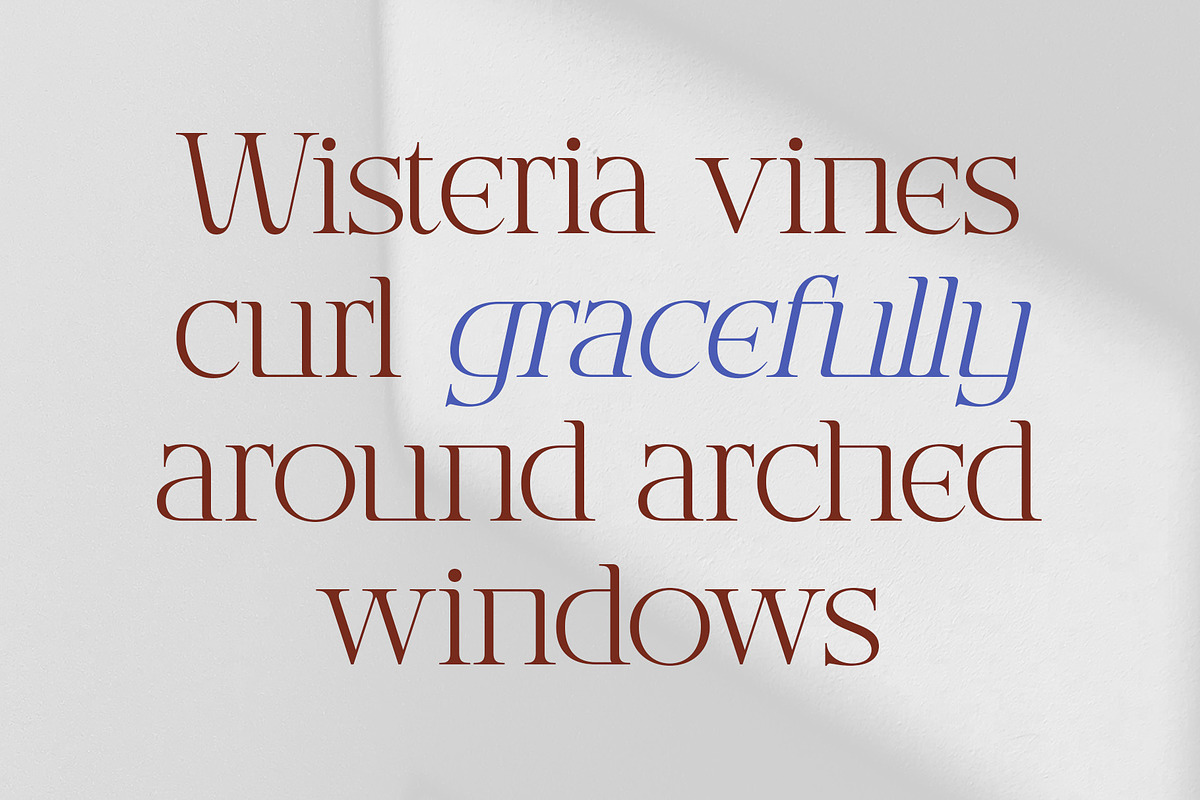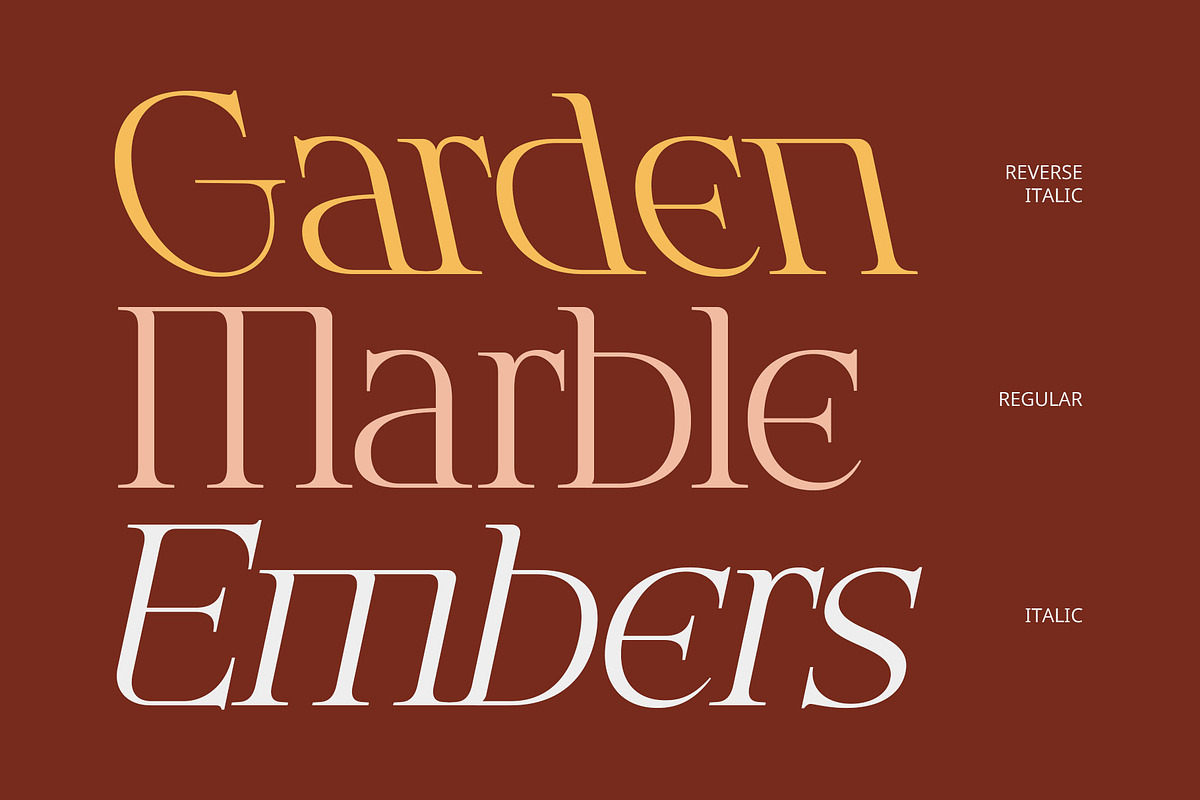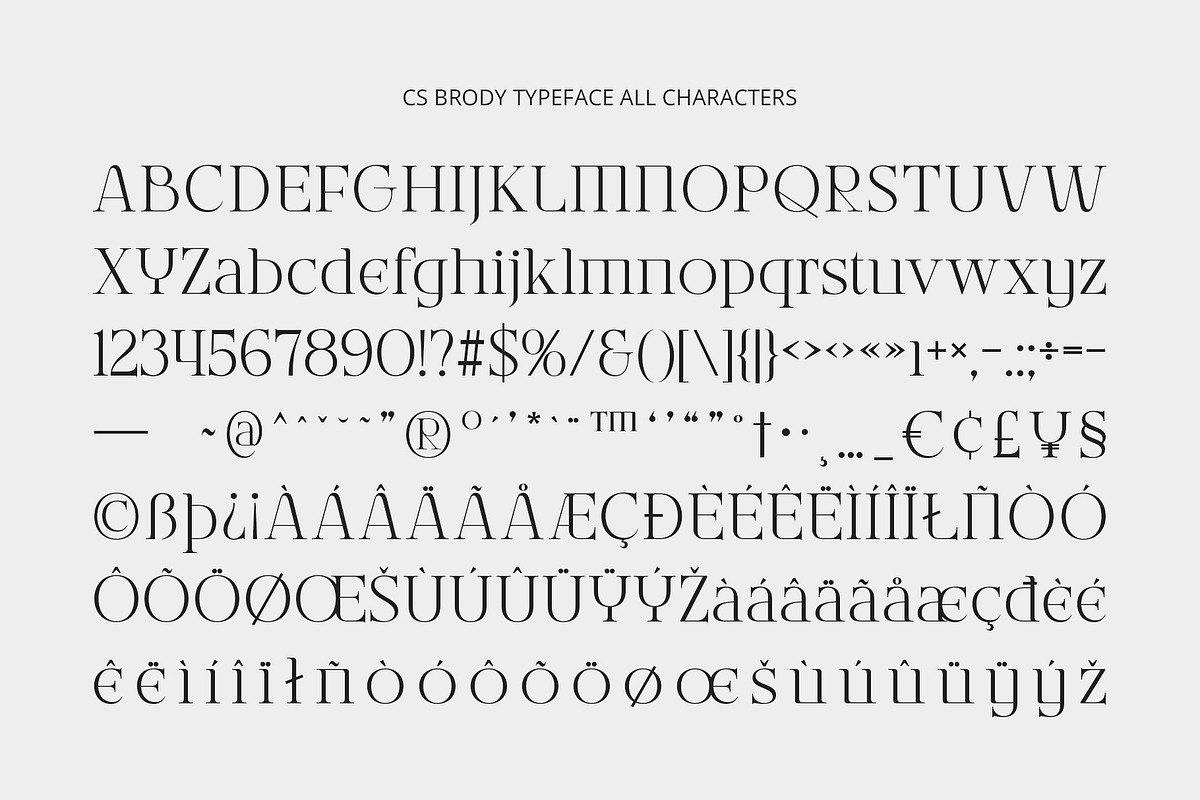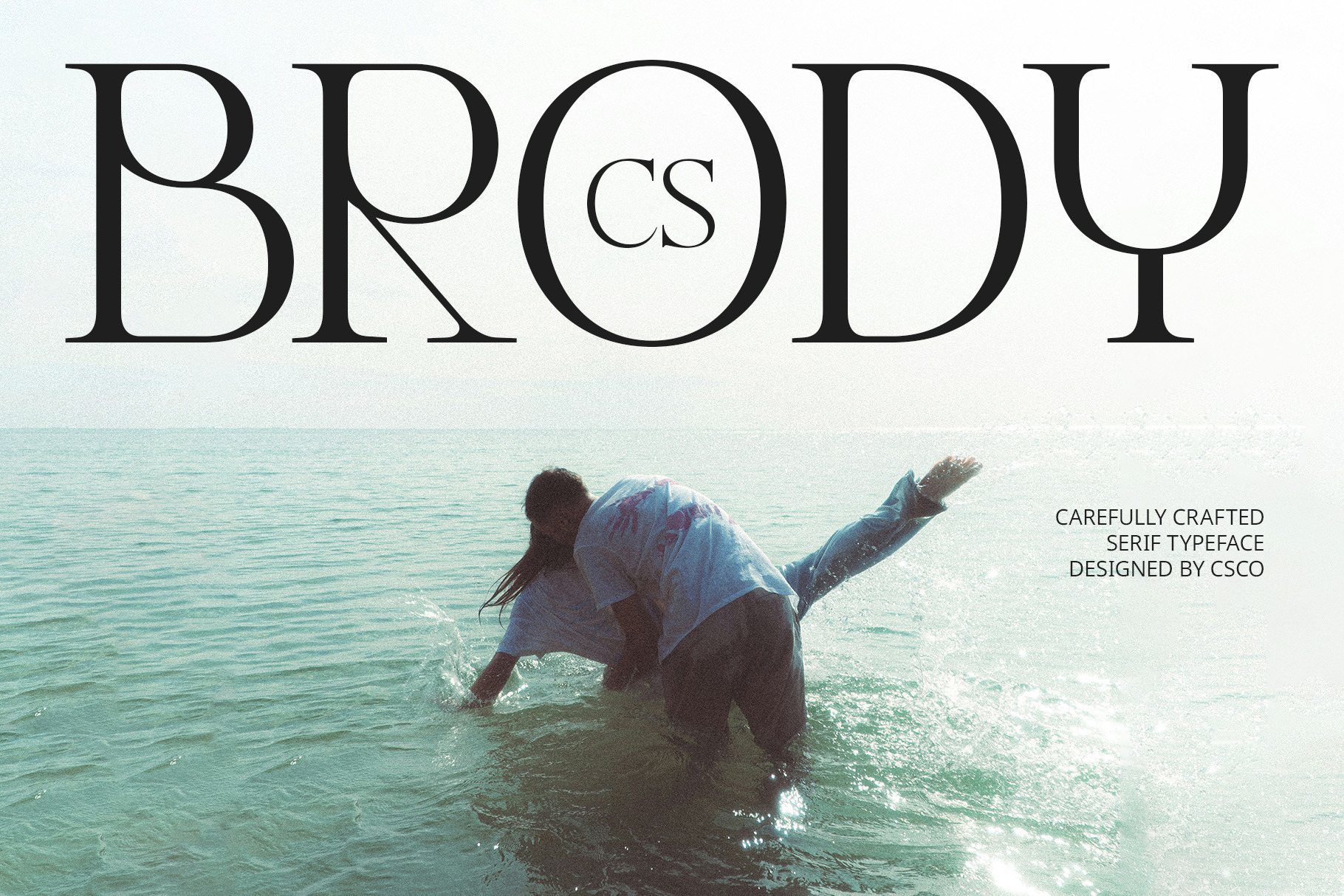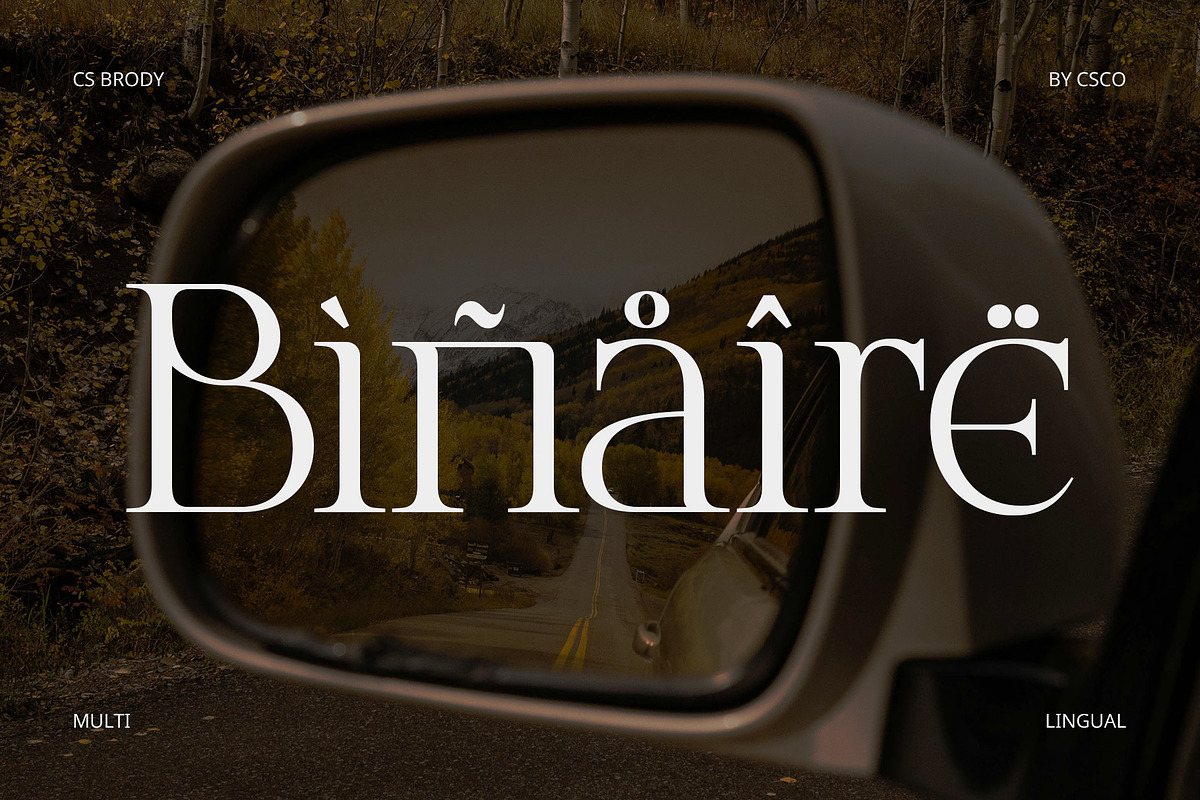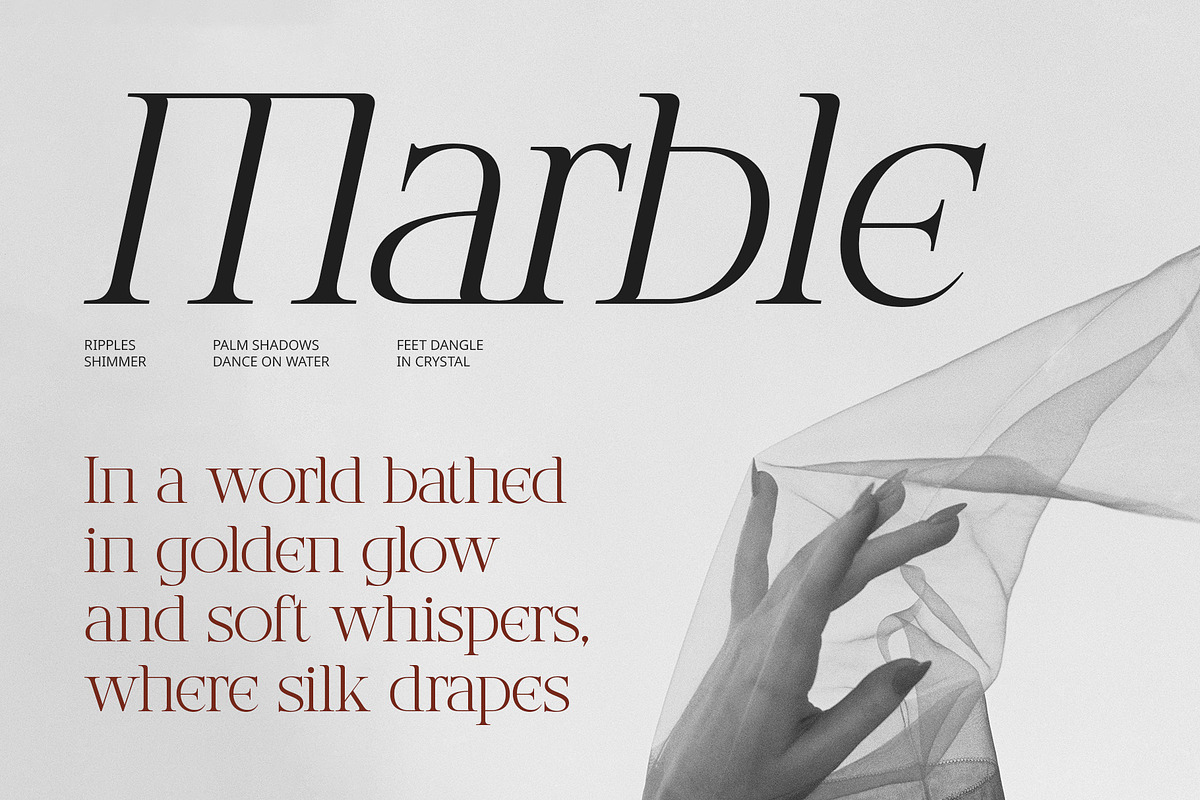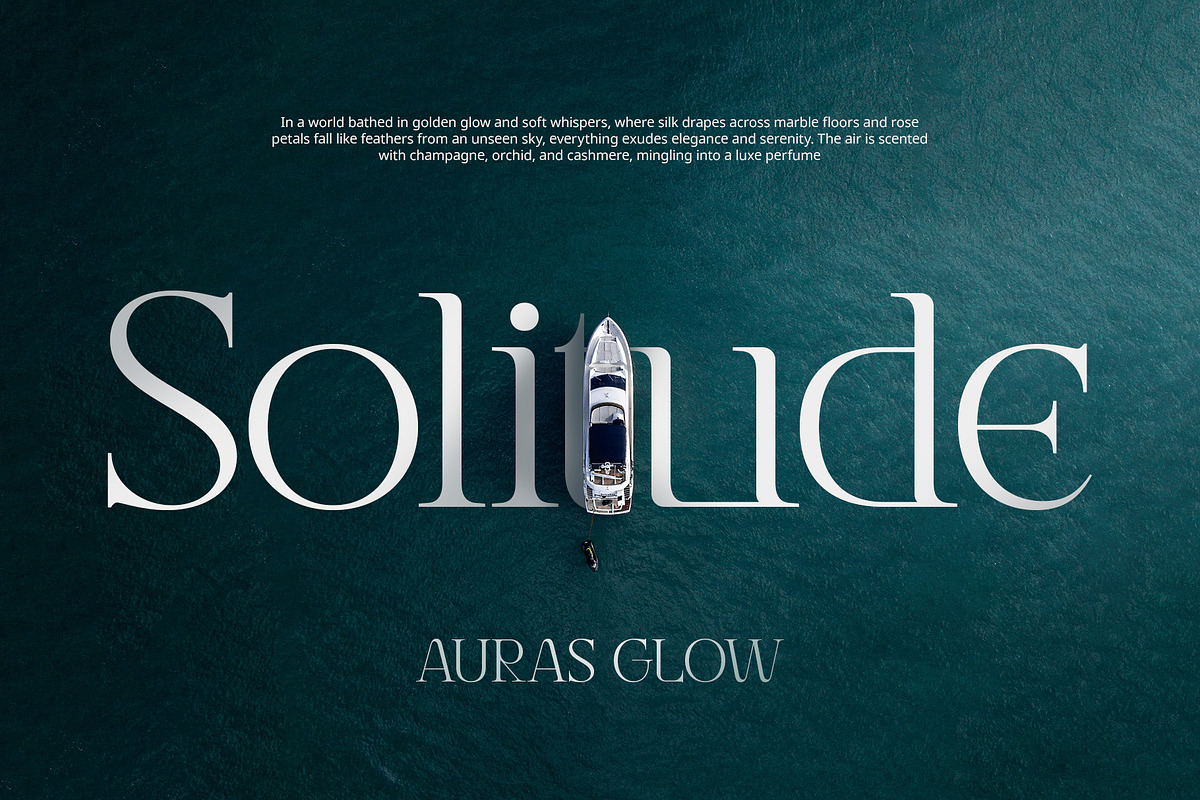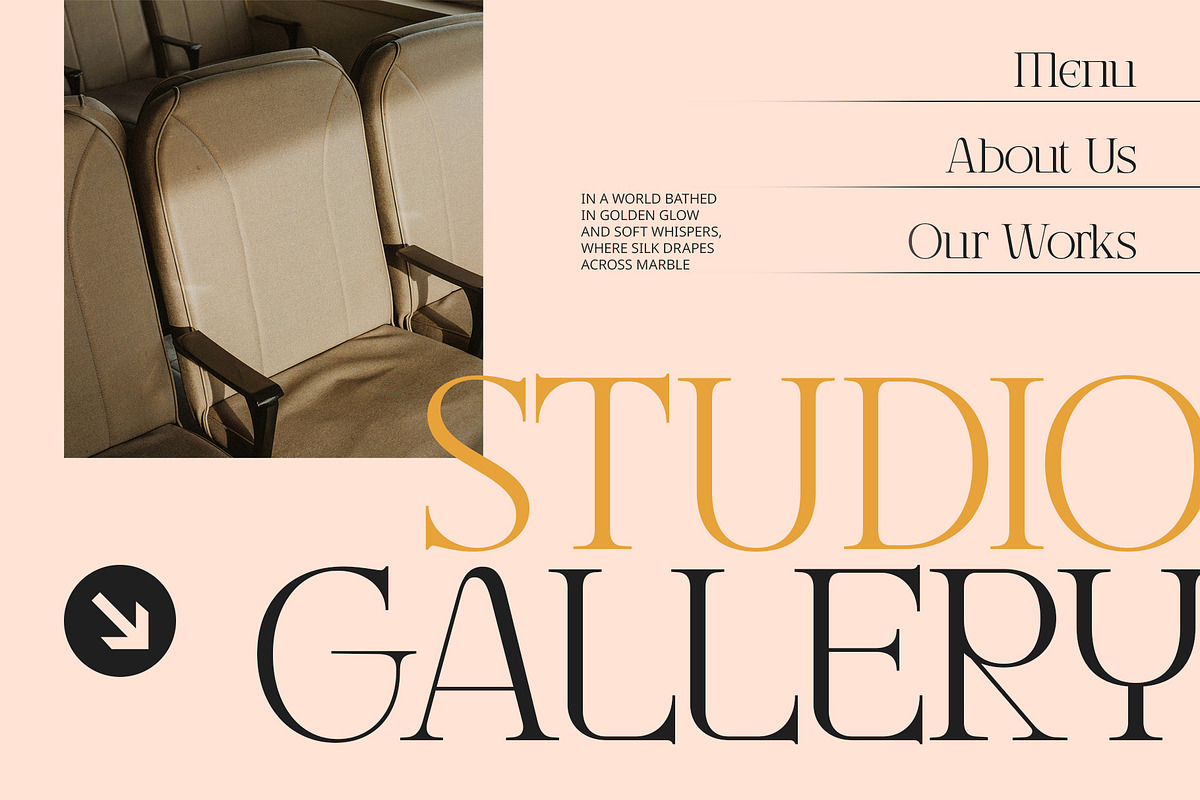
CS Brody – Classic Font
CS Brody – Classic Serif Font with Modern Elegance
Timeless Elegance Meets Minimalist Sophistication CS Brody is a modern serif font that gracefully blends the charm of classic typography with the clarity of contemporary design. Its sleek letterforms, clean strokes, and elegant proportions make it a go-to choice for projects that demand a refined and professional tone.
Sharp Details and Slim Proportions The font features thin, sharp serifs and slim, well-balanced letter structures that add a touch of sophistication without overwhelming the layout. These subtle details evoke the grace of traditional serif typefaces while maintaining a crisp, modern appearance.
Versatile and Beautifully Composed Whether used for luxury branding, editorial layouts, or stylish wedding invitations, CS Brody adapts effortlessly to various high-end design needs. Its minimalist structure supports both body text and striking headlines, delivering a polished and cohesive look.
Inspired by Classic Typography, Refined for Today Drawing from historical serif forms, CS Brody reinterprets classic elegance through a modern lens—softened just enough to feel current and versatile, yet still rooted in timeless beauty.
Ideal for Elegant and Professional Designs Perfect for visual presentations that need to appear tasteful, high-class, and visually clean, CS Brody offers a harmonious blend of charm and clarity that elevates any design with its sophisticated presence.
- CS Brody Regular
- CS Brody Italic
- CS Brody Reverse Italic